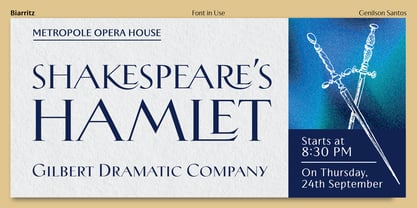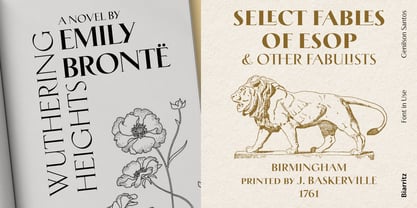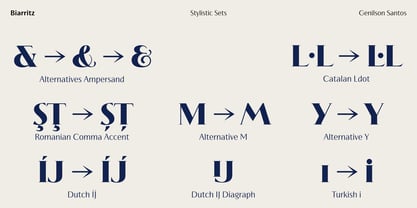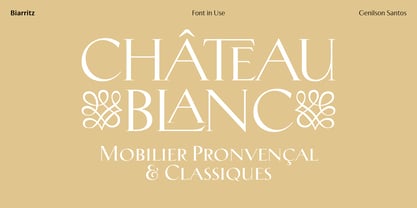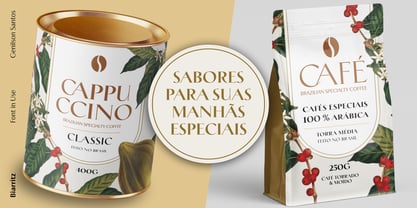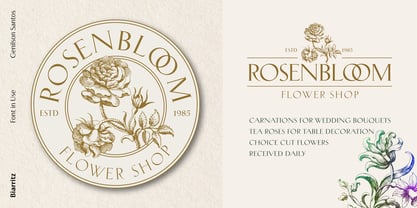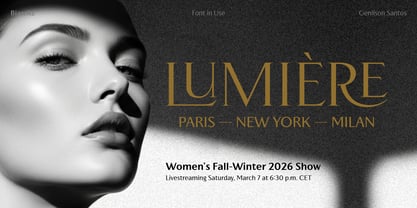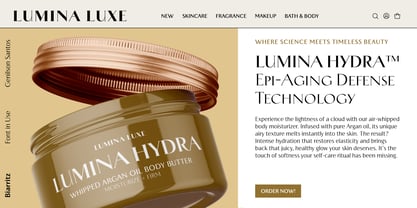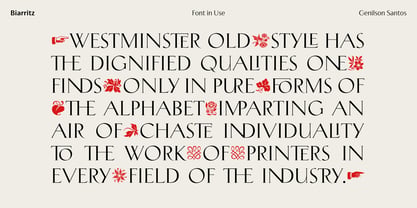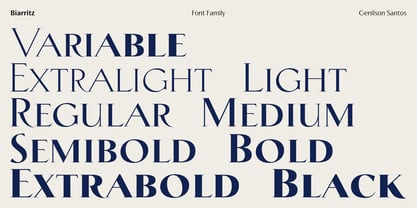
Biarritz
by Genilson Santos
Biarritz is a high-contrast serif font designed for those who seek a balance between timeless sophistication and modern chic. Inspired by the aesthetics of high-end fashion and editorial excellence, this typeface features sharp serifs, delicate hairlines, and graceful curves that command attention without losing legibility. Biarritz captures the spirit of "Le Grand Luxe." Its refined hairlines and sturdy serifs create a sophisticated texture in headlines, mastheads, and luxury packaging. Whether you are designing for a boutique hotel, a premium fragrance line, or a high-fashion editorial, Biarritz provides a polished, bespoke feel to every layout. Biarritz is more than just a beautiful face; it is a work of technical precision: - 8 Weights + Variable Font: From the delicate ExtraLight to the impactful Black, Biarritz offers a complete typographic system. The included Variable version allows for infinite flexibility in digital and motion design. - High-End Editorial Feel: Perfectly balanced strokes provide a luxurious feel, ideal for large headlines and display use. - Advanced OpenType Features: Access a world of customization with discretionary ligatures and stylistic alternates, allowing for unique, bespoke typographic layouts with a single click. - Extended Multilingual Support: A robust character set supporting over 200+ Latin-based languages, ensuring your message reaches a global audience.
Biarritz